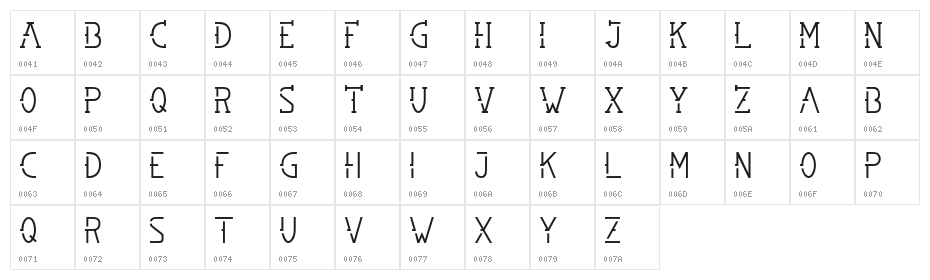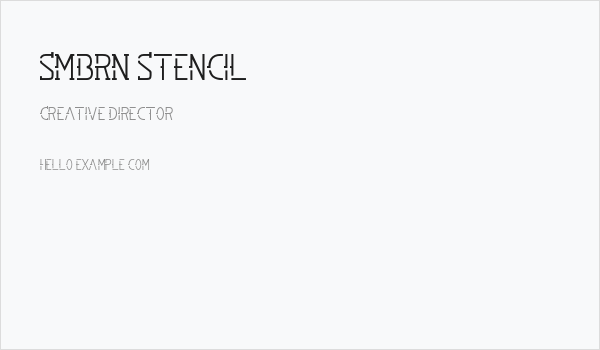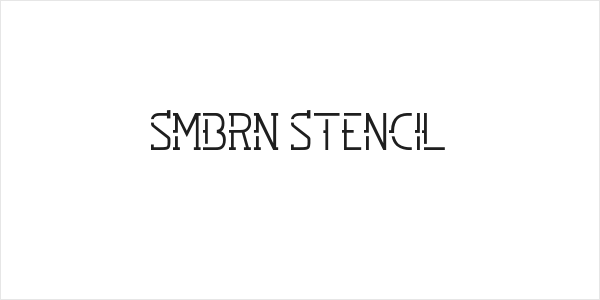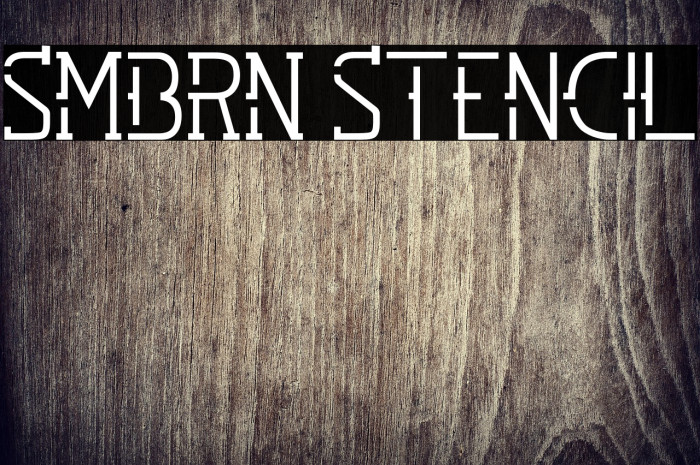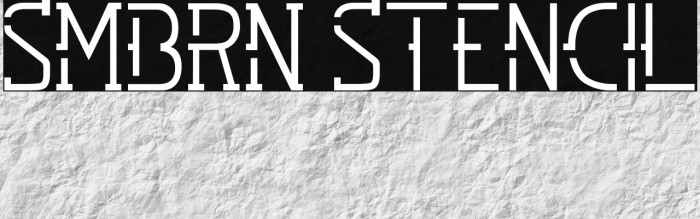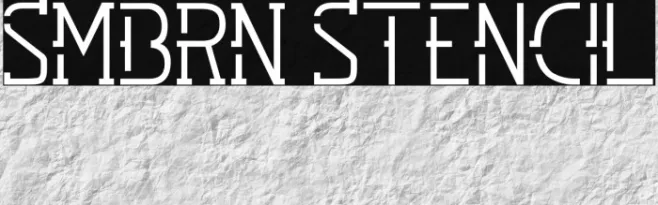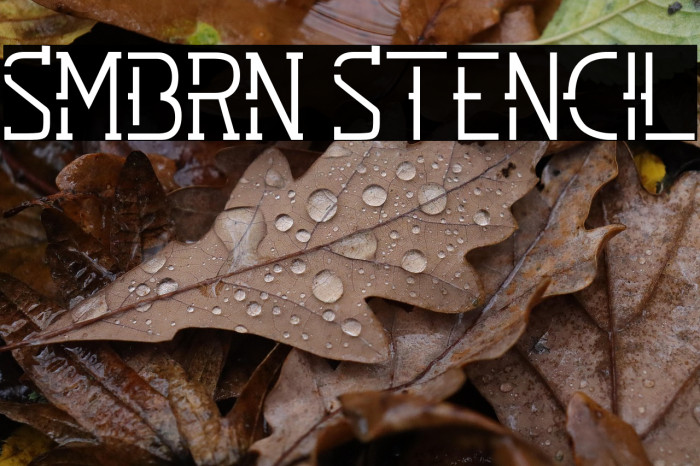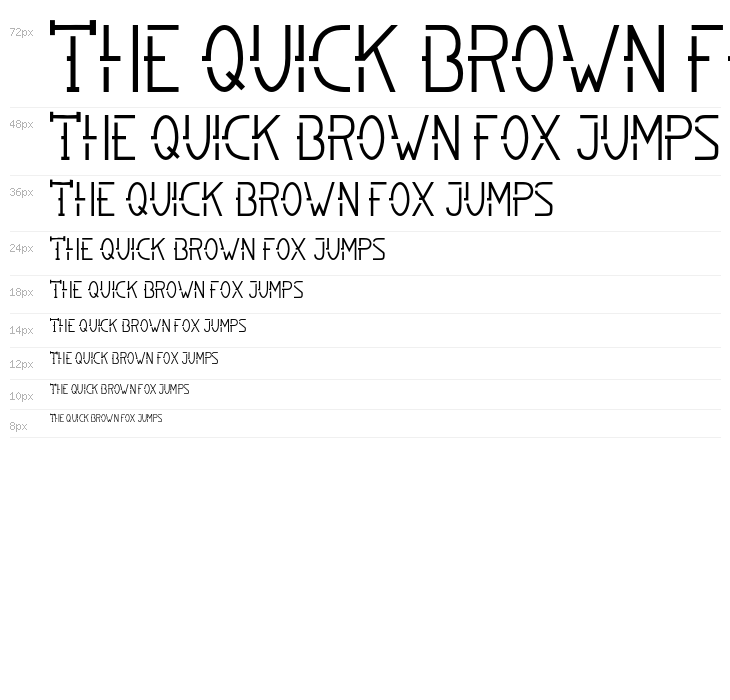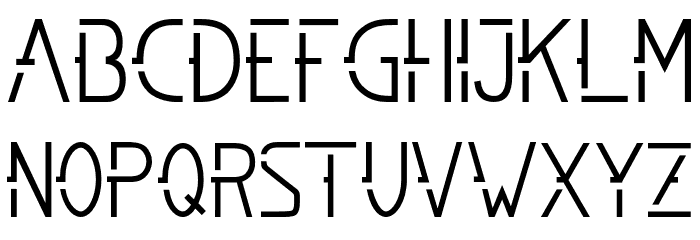
SMBRN Stencil Font
SMBRN Stencil Description
This font features a bold and striking stencil design, characterized by its geometric and angular shapes. The letters are crafted with distinct breaks and gaps, typical of stencil fonts, which give it a utilitarian and industrial feel. The uppercase letters are uniform in height, with sharp edges and clean lines that enhance its modern aesthetic. The font's design is both functional and decorative, making it suitable for a variety of creative applications. Its unique style is eye-catching and can be used to convey a sense of strength and precision.
| Proposed Projects | Ideal for branding, signage, posters, and any project requiring a bold, modern look. |